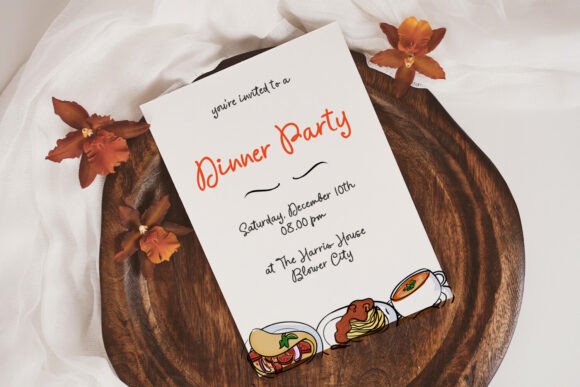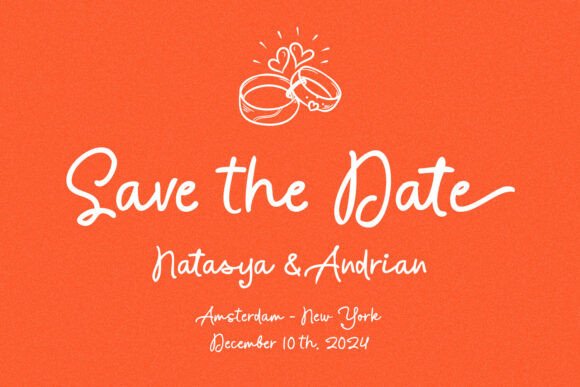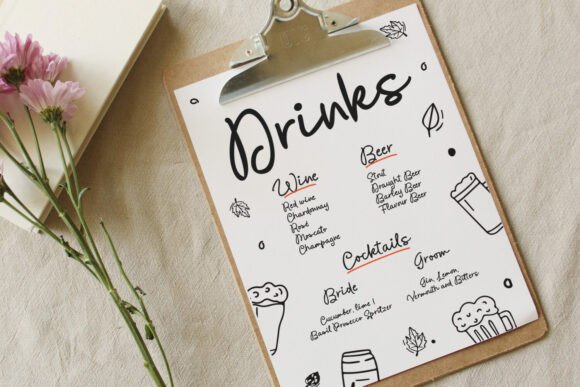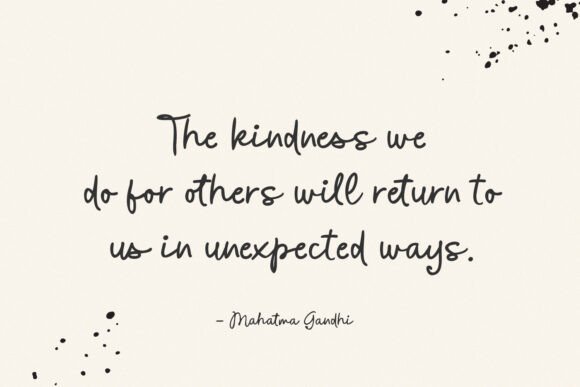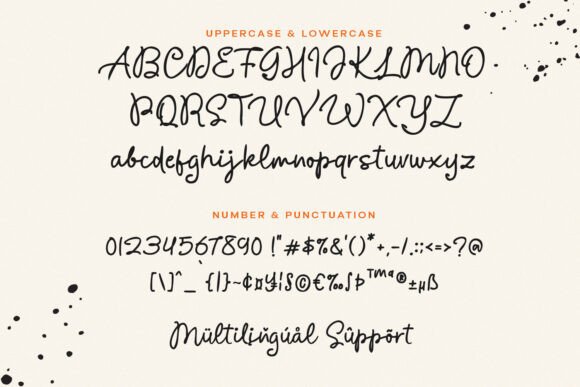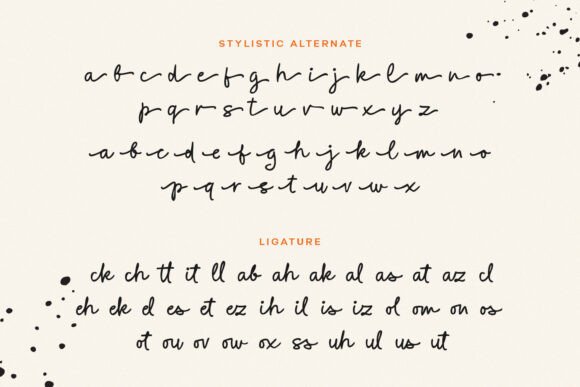
Introducing Blower Cerita Font: Elevate Your Designs with a Touch of Realism
Are you on the lookout for a font that can add a personal touch to your creative projects? Look no further than Blower Cerita, a realistic handwritten font designed to bring a sense of authenticity and uniqueness to your digital images. In this article, we’ll dive into the features and benefits of Blower Cerita, and explore how it can be used to enhance your designs.
What is Blower Cerita Font?
Blower Cerita is a carefully crafted handwritten font that mimics the natural flow and imperfections of human handwriting. Its realistic style makes it perfect for a wide range of creative projects, from logos and branding materials to invitation cards, party decorations, and more. With Blower Cerita, you can add a touch of warmth and personality to your designs, setting them apart from the rest.
Features of Blower Cerita Font
- Realistic Handwritten Style: Blower Cerita boasts a natural, handwritten look that’s sure to capture the attention of your audience.
- Versatile: This font can be used for various purposes, including logos, invitation cards, wedding invites, birthday cards, home decor, holiday gift packaging, party decorations, fabric prints, and more.
- Easy to Use: Blower Cerita is designed to be user-friendly, making it easy to incorporate into your designs.
- Unique and Authentic: With its realistic style, Blower Cerita adds a touch of authenticity to your designs, making them stand out from the crowd.
Benefits of Using Blower Cerita Font
By incorporating Blower Cerita into your designs, you can enjoy a range of benefits, including:
- Enhanced Visual Appeal: Blower Cerita’s realistic style adds a touch of warmth and personality to your designs, making them more visually appealing.
- Increased Engagement: The unique and authentic look of Blower Cerita can help capture the attention of your audience, increasing engagement and interaction with your content.
- Flexibility: With its versatility, Blower Cerita can be used across various platforms and mediums, from digital images to print materials.
How to Use Blower Cerita Font
- Create Logos and Branding Materials: Use Blower Cerita to add a personal touch to your logos, business cards, and other branding materials.
- Design Invitation Cards and Party Decorations: Add a touch of warmth and personality to your invitation cards, party decorations, and other celebratory materials.
- Enhance Digital Images: Use Blower Cerita to add text and other design elements to your digital images, making them more beautiful and unique.